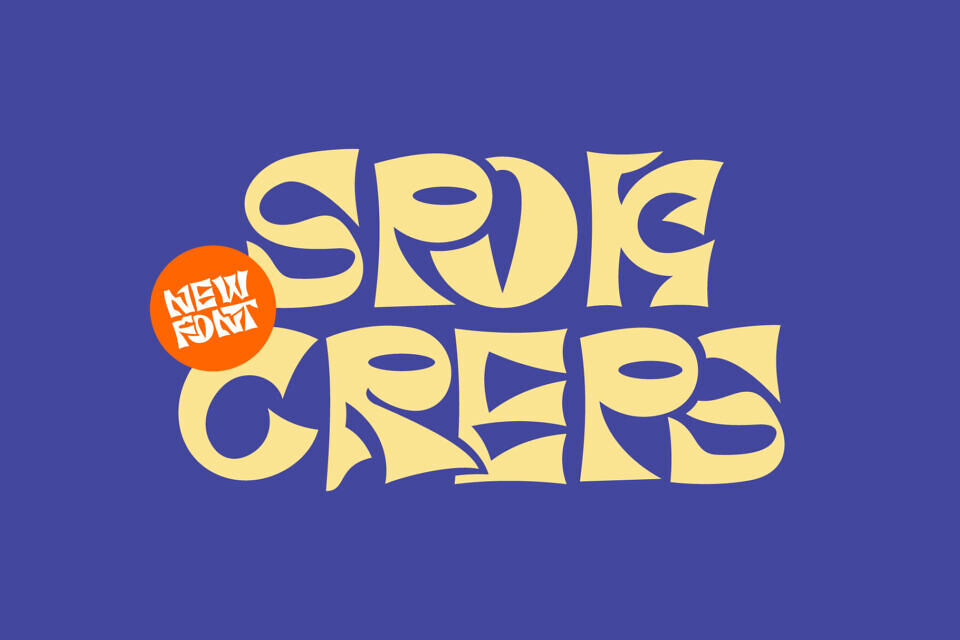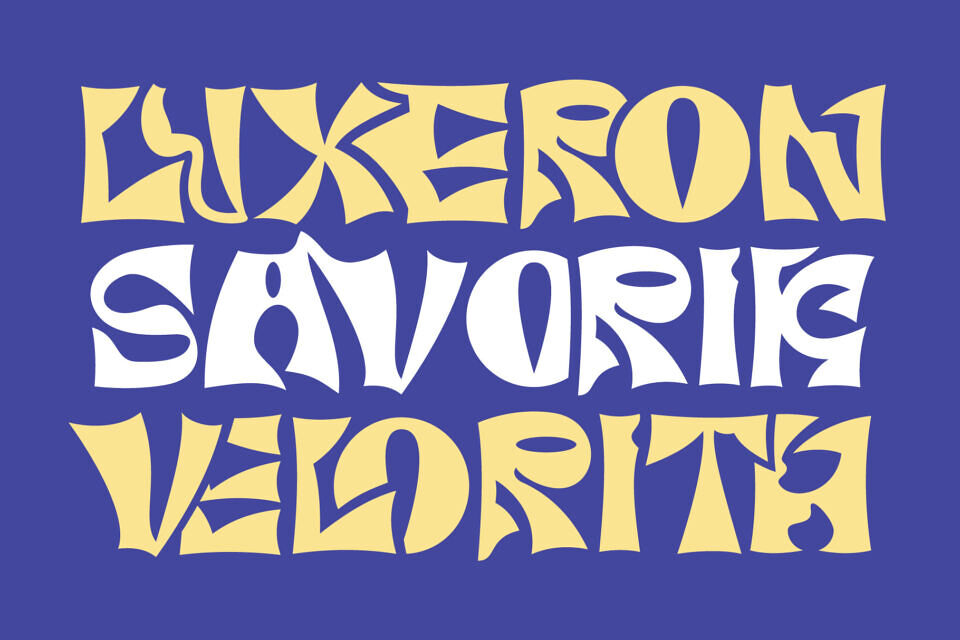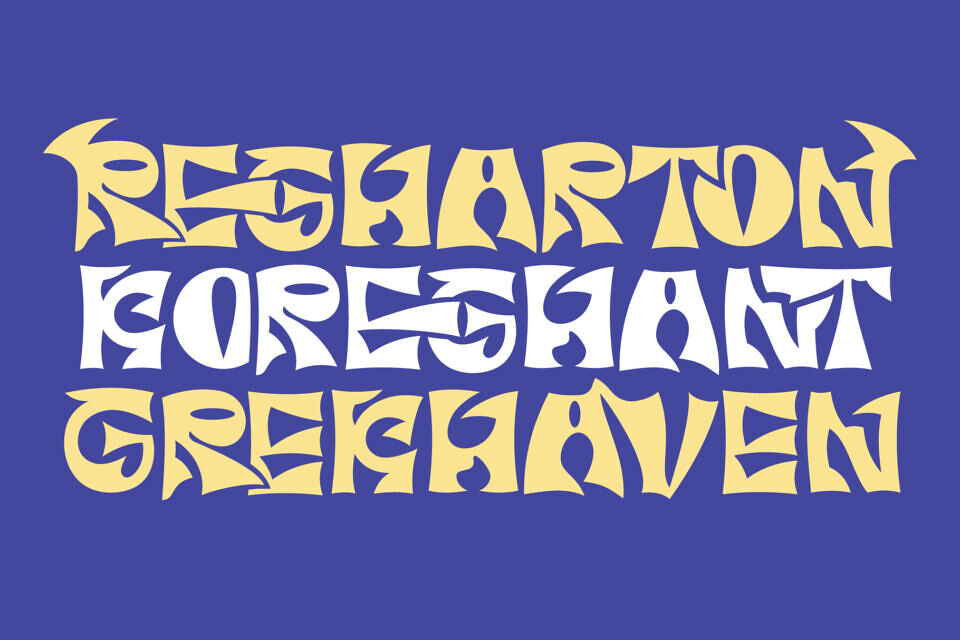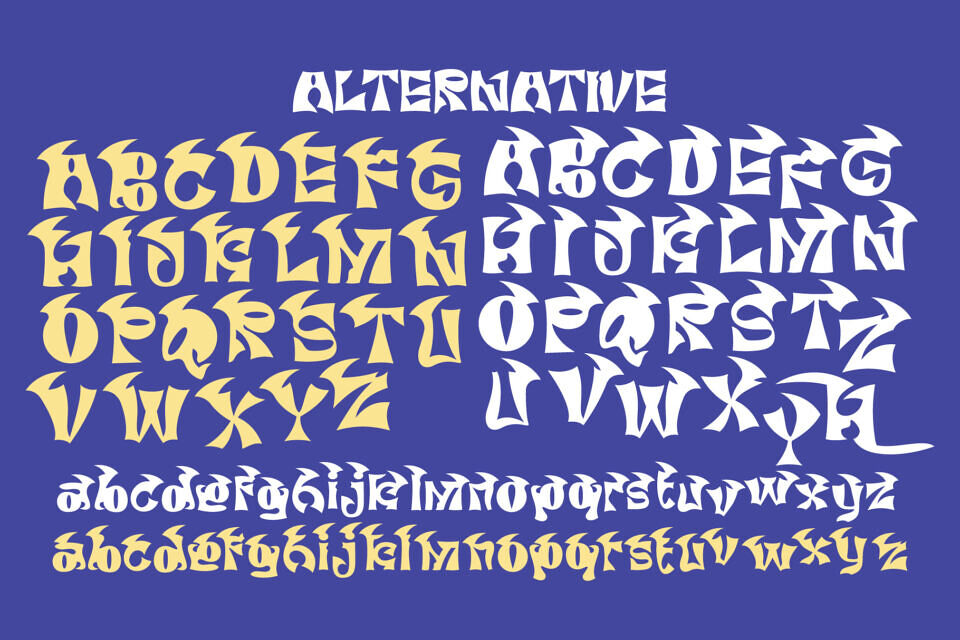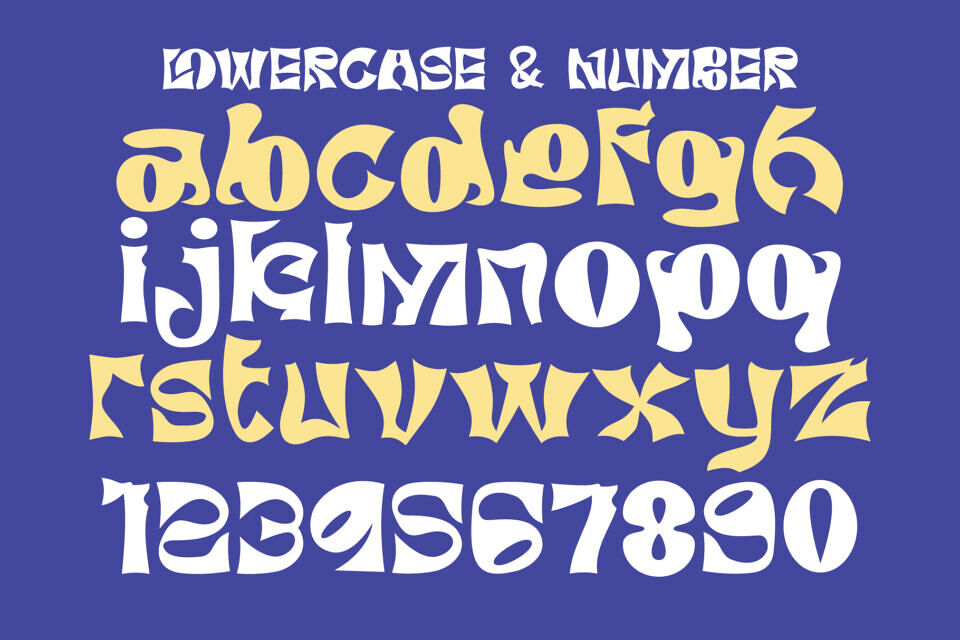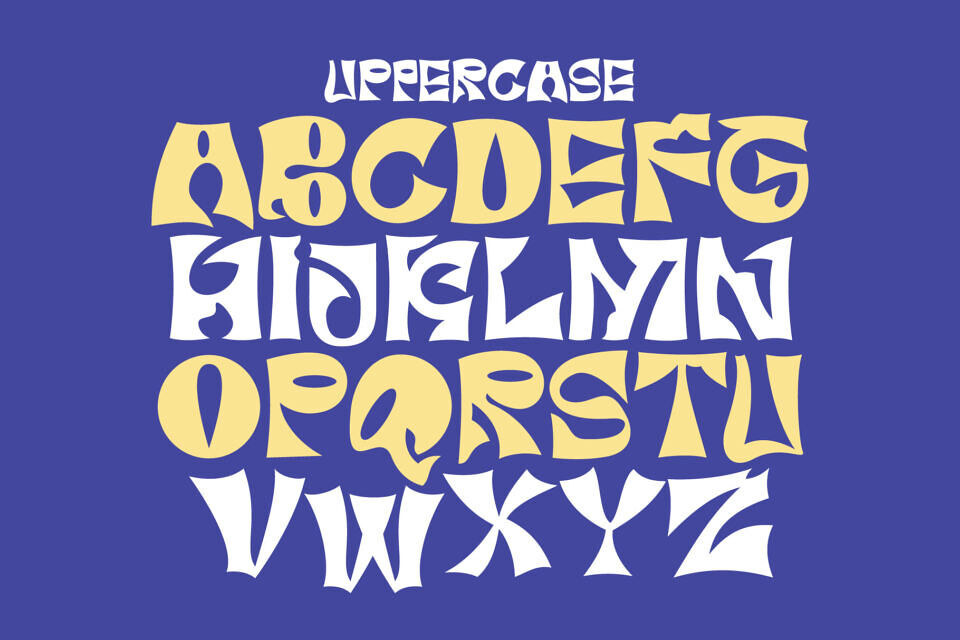
Spok Creps is a bold, funky-themed sans-serif display font that radiates expressive energy and artistic freedom. With its abstract shapes and unique letterforms, it brings a dynamic and creative edge to any design.
Packed with 106 alternates and 45 ligatures, Spok Creps offers exceptional versatility for custom typography, making it ideal for branding, posters, headlines, and both modern or retro-inspired visuals. This font also works perfectly for Halloween-themed designs, giving a playful yet bold spooky vibe. It includes multilingual support, ensuring your designs resonate with audiences worldwide.